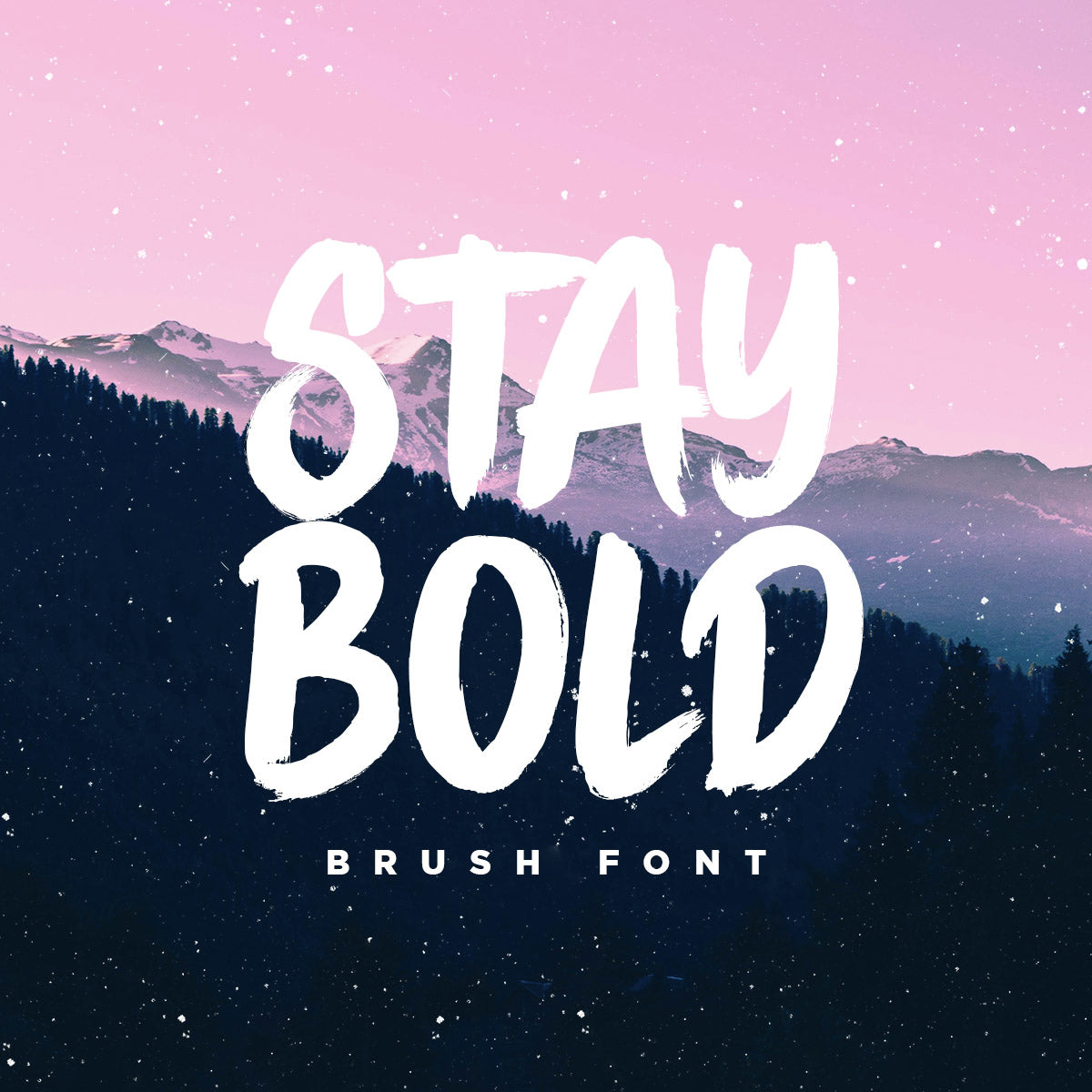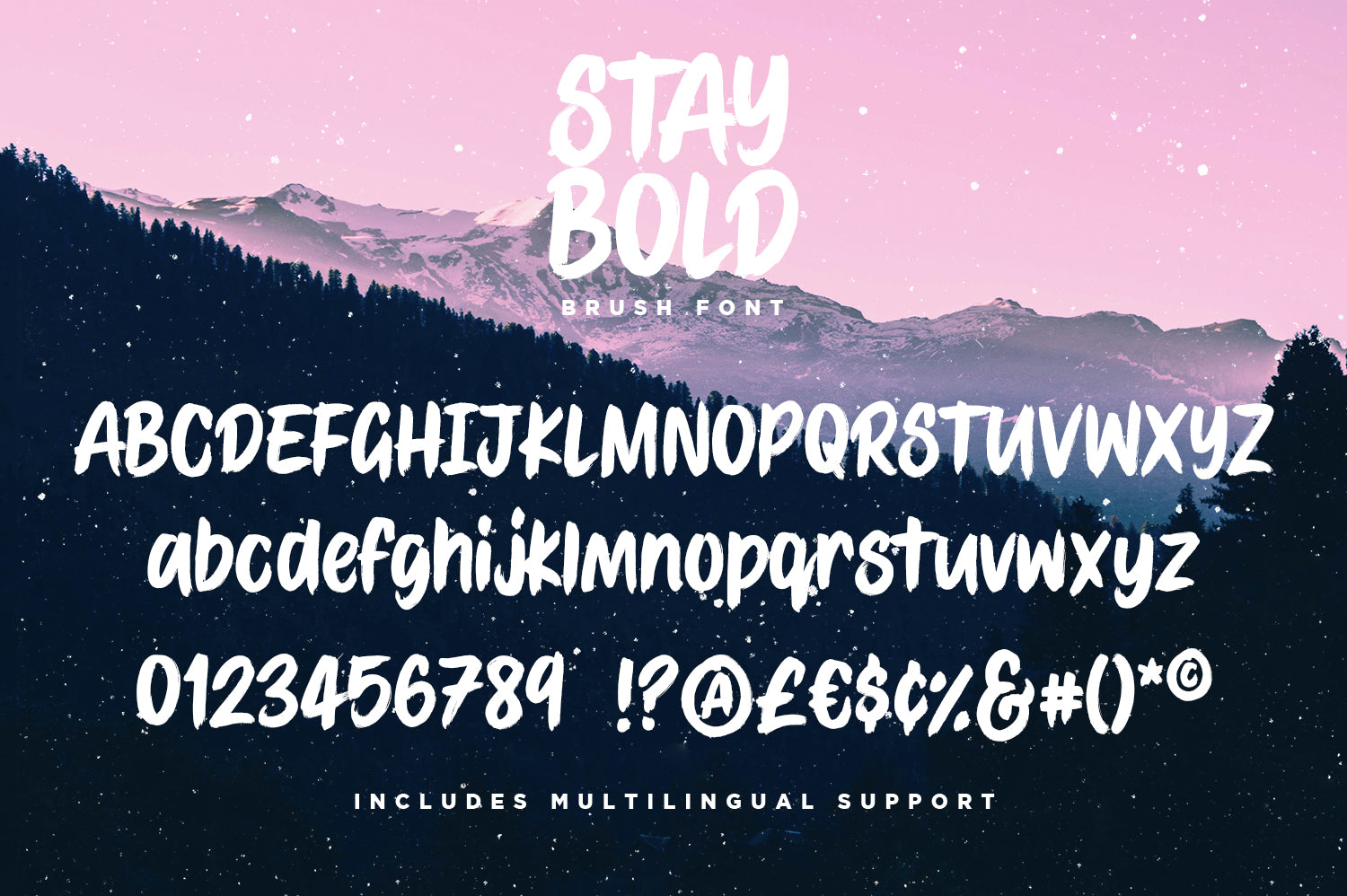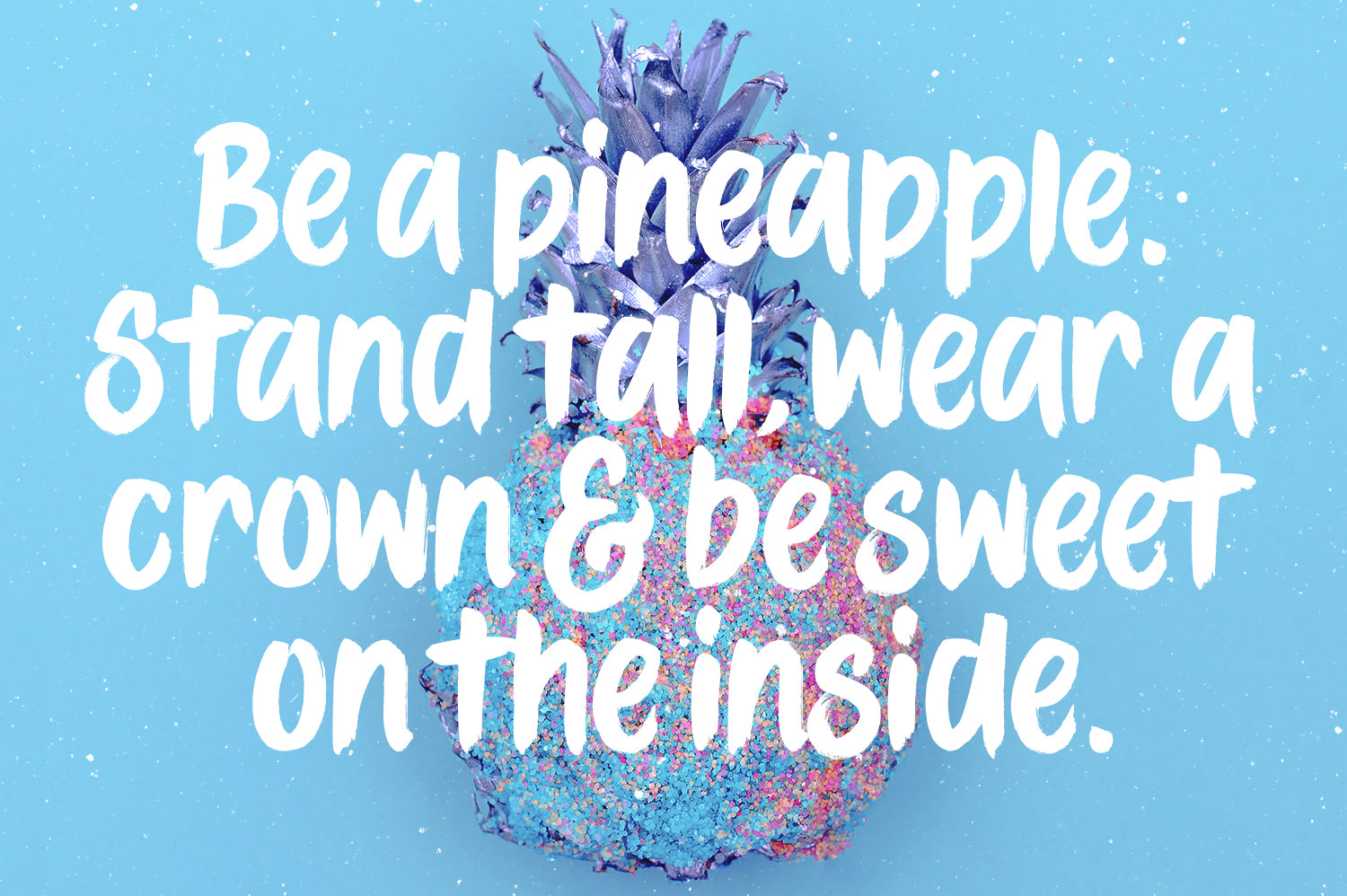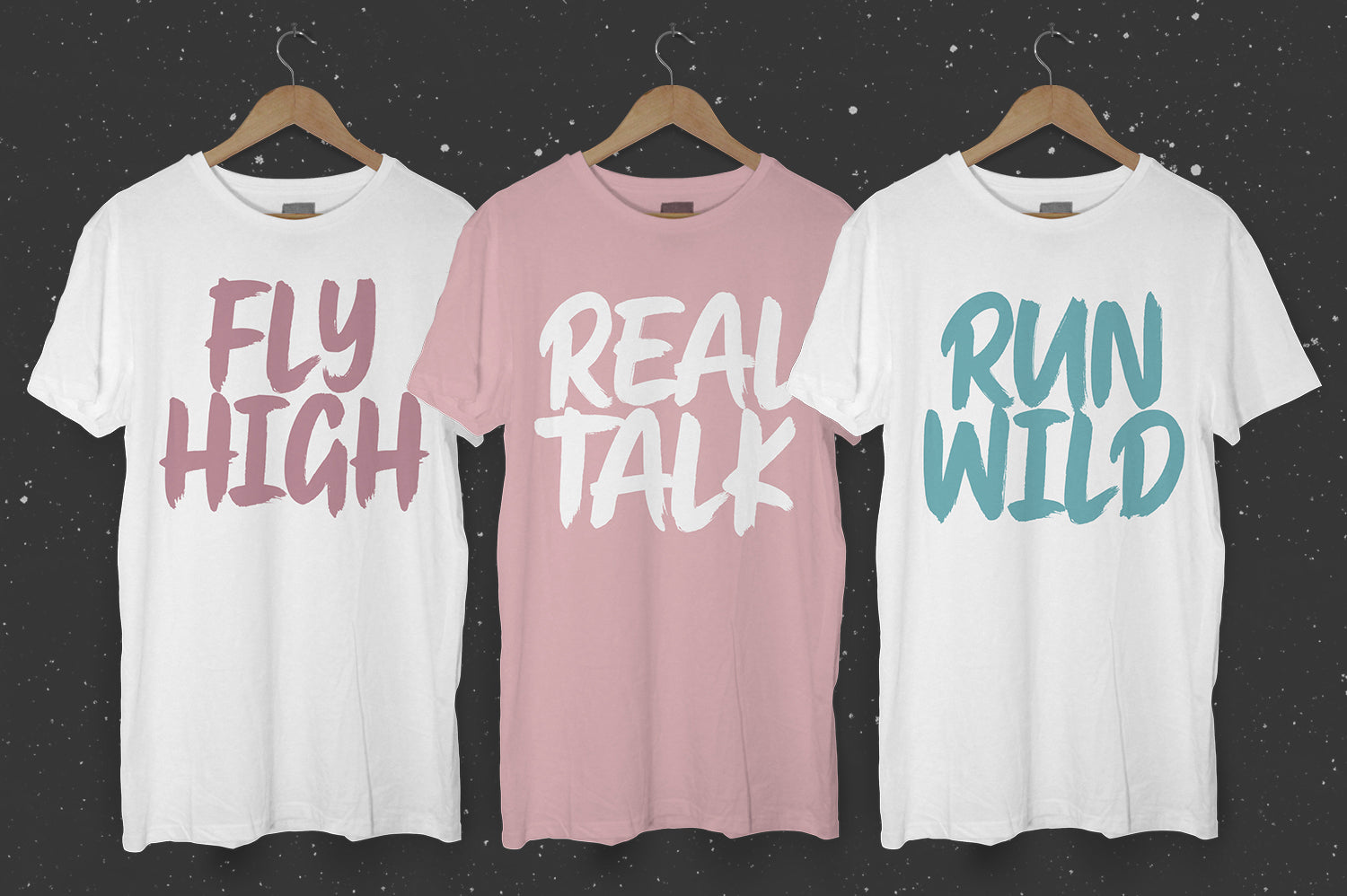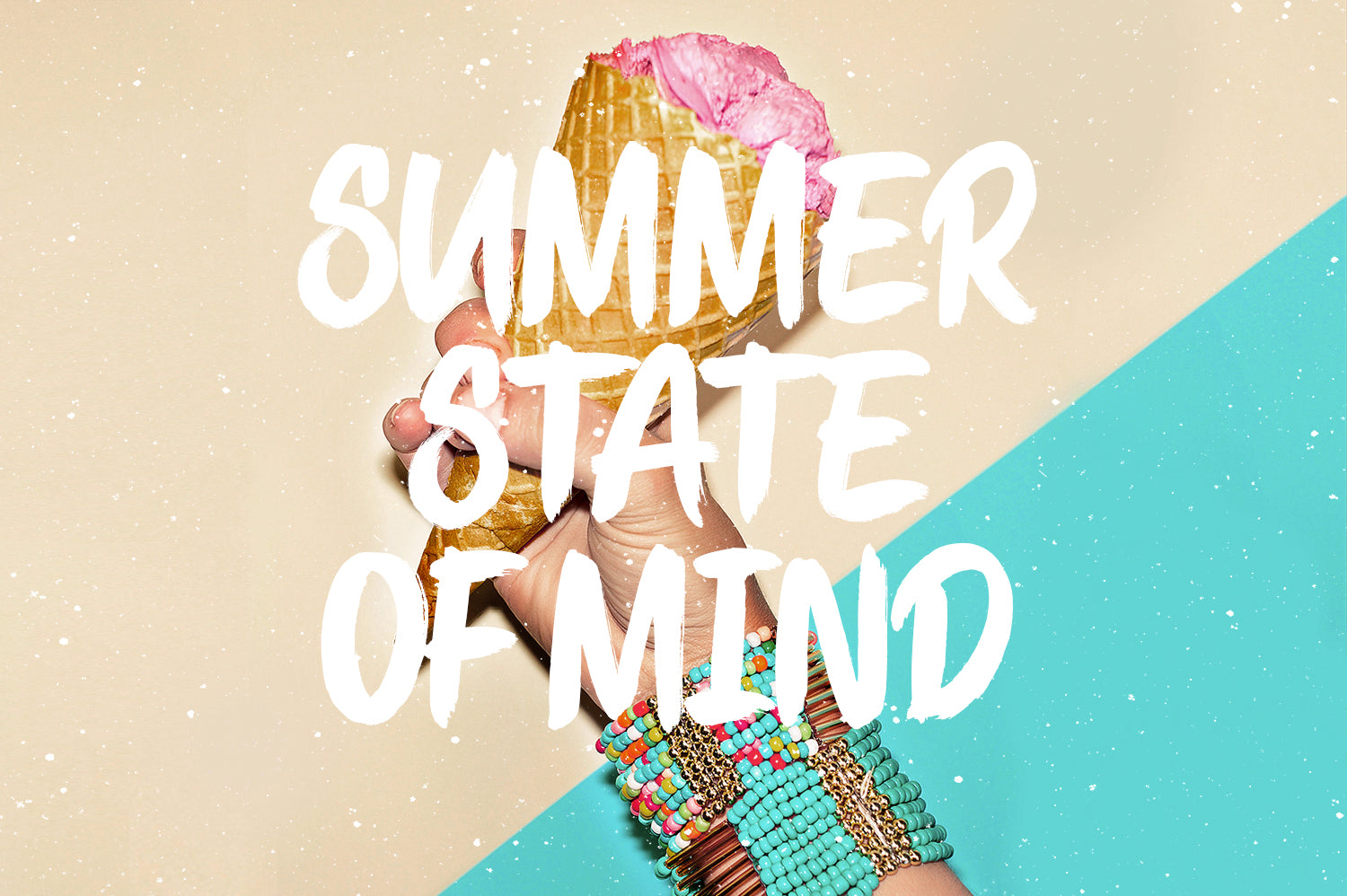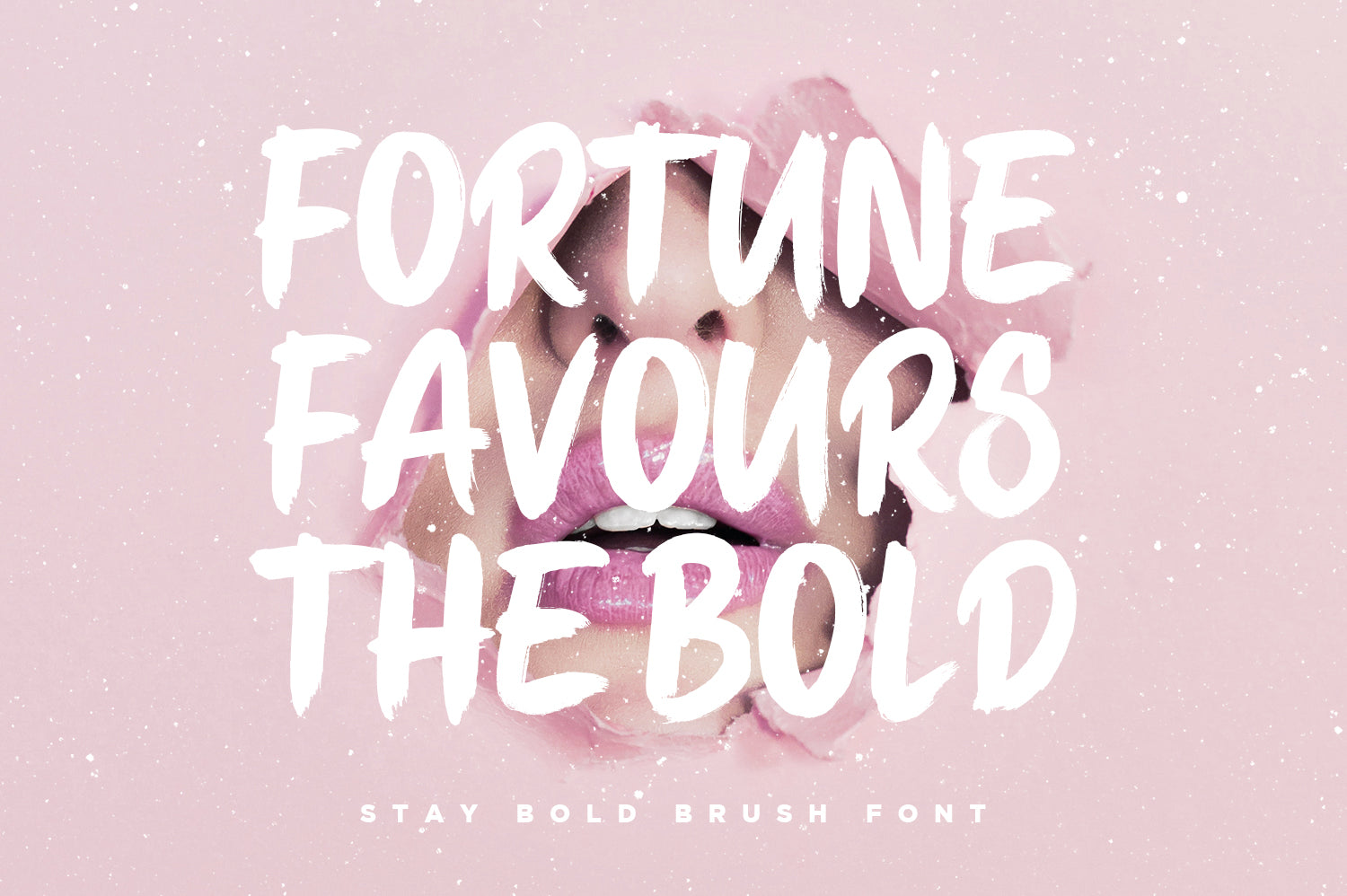
Stay Bold Brush Font
Stay Bold Brush Font is a hand-painted typeface featuring a bold design with rough edges, available in a single TTF file. It supports uppercase, lowercase, numerals, and a wide range of punctuation, along with multilingual support for various languages including English, French, Spanish, and more.